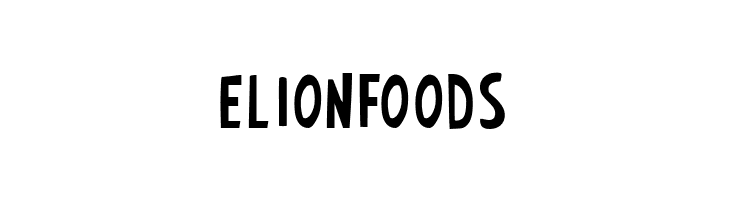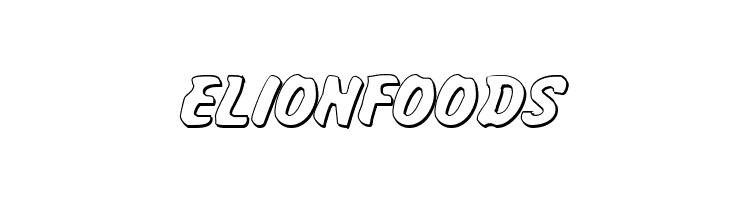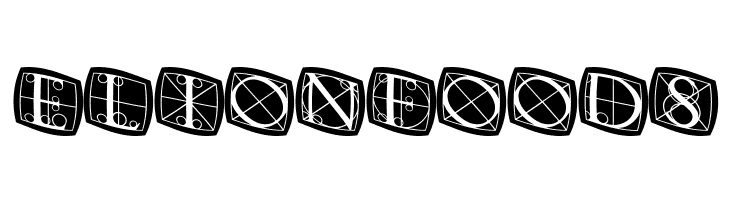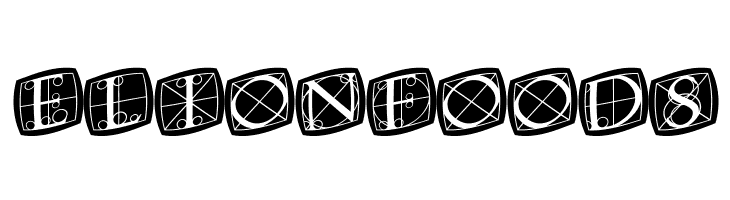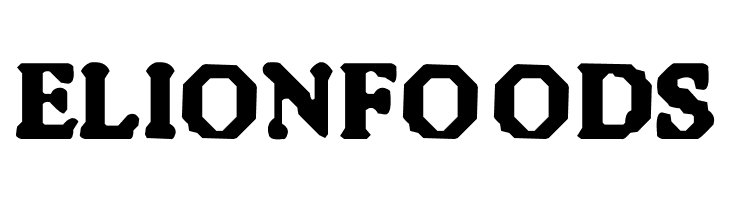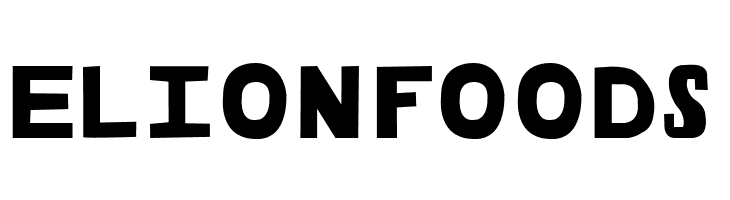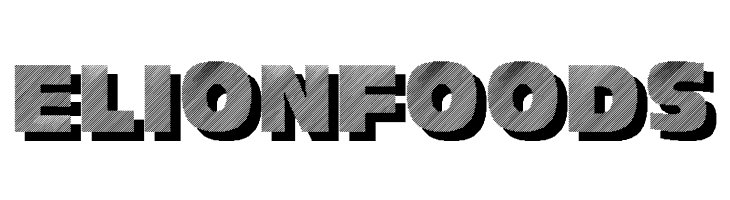
A bold, modern font with a slightly condensed and decorative style.
A bold, shadowed font with rounded, italicized characters for a playful look.
A bold, geometric font with decorative patterns and rounded edges.
A bold, decorative font with rounded edges and intricate geometric patterns.
A bold, geometric font with a vintage yet modern appeal, ideal for impactful headlines.
A bold, playful font with a dynamic, graffiti-inspired style.
A bold, three-dimensional font with a playful and dynamic appearance.
An ornate, floral-themed decorative font with intricate details.